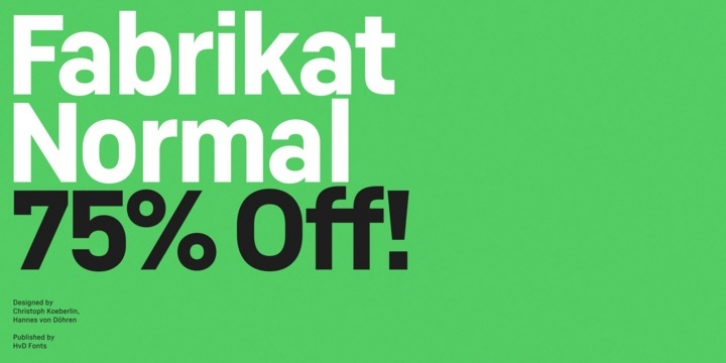
Fabrikat Normal was designed by Hannes von Döhren, Christoph Koeberlin and published by HVD Fonts. Fabrikat Normal contains 14 styles and family package options. The font is currently #26 in Hot New Fonts.
Fabrikat Normal is a geometric typeface which is based on 20th century German engineers' typefaces. It is optimised for small sizes and long texts, but due to its constructed architecture it also works in headlines or display use. You can combine Fabrikat Normal with the more straight and space saving Fabrikat Kompakt or the reduced to the max Fabrikat Mono.